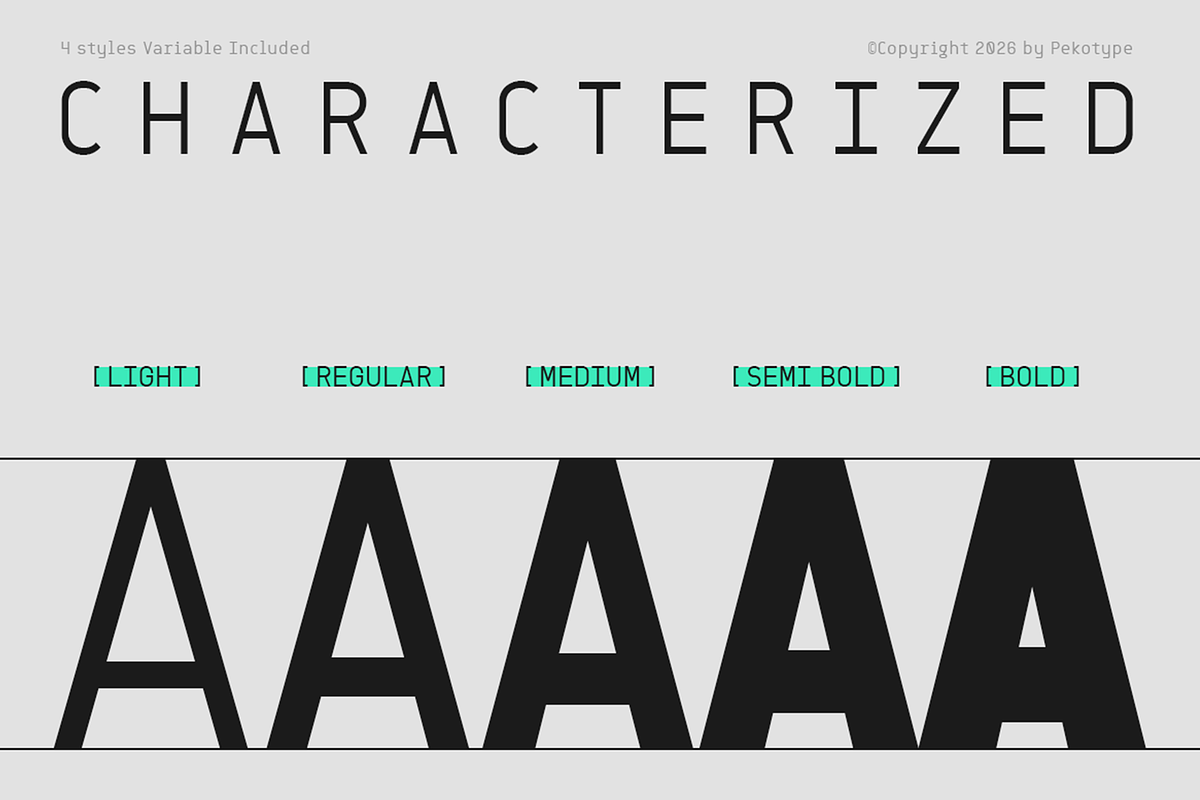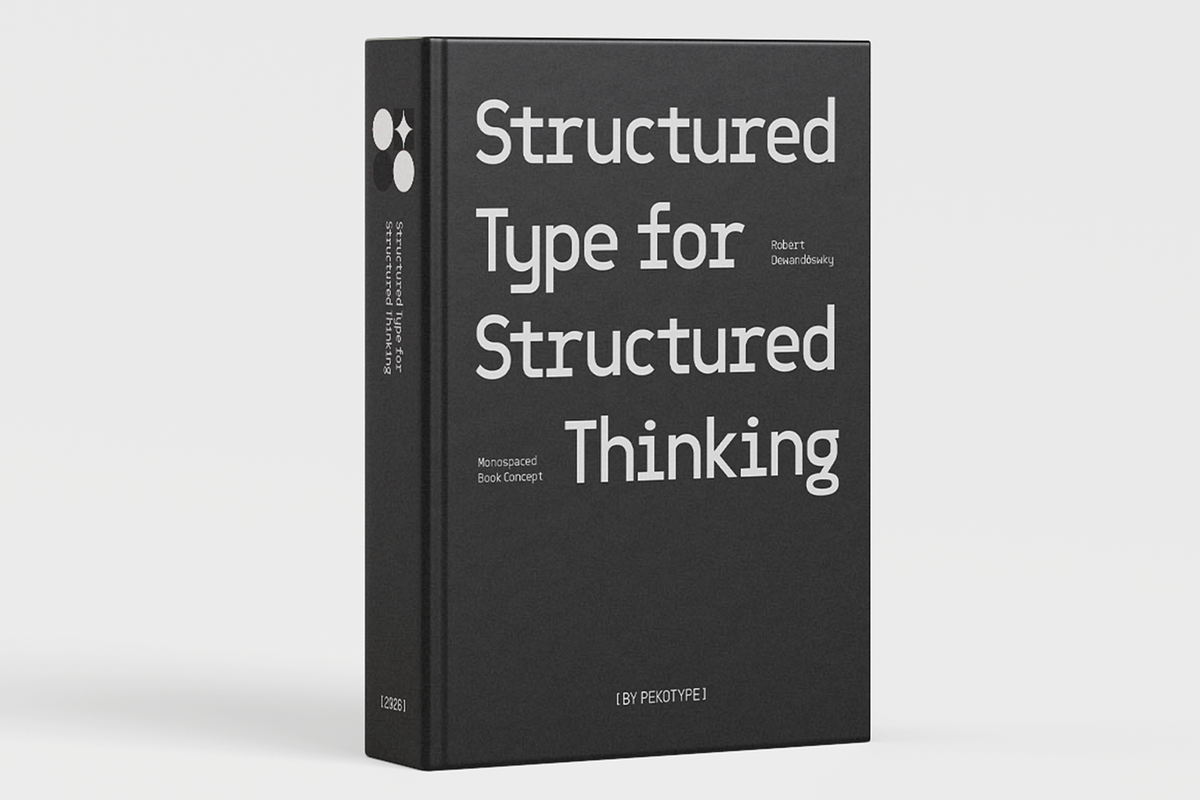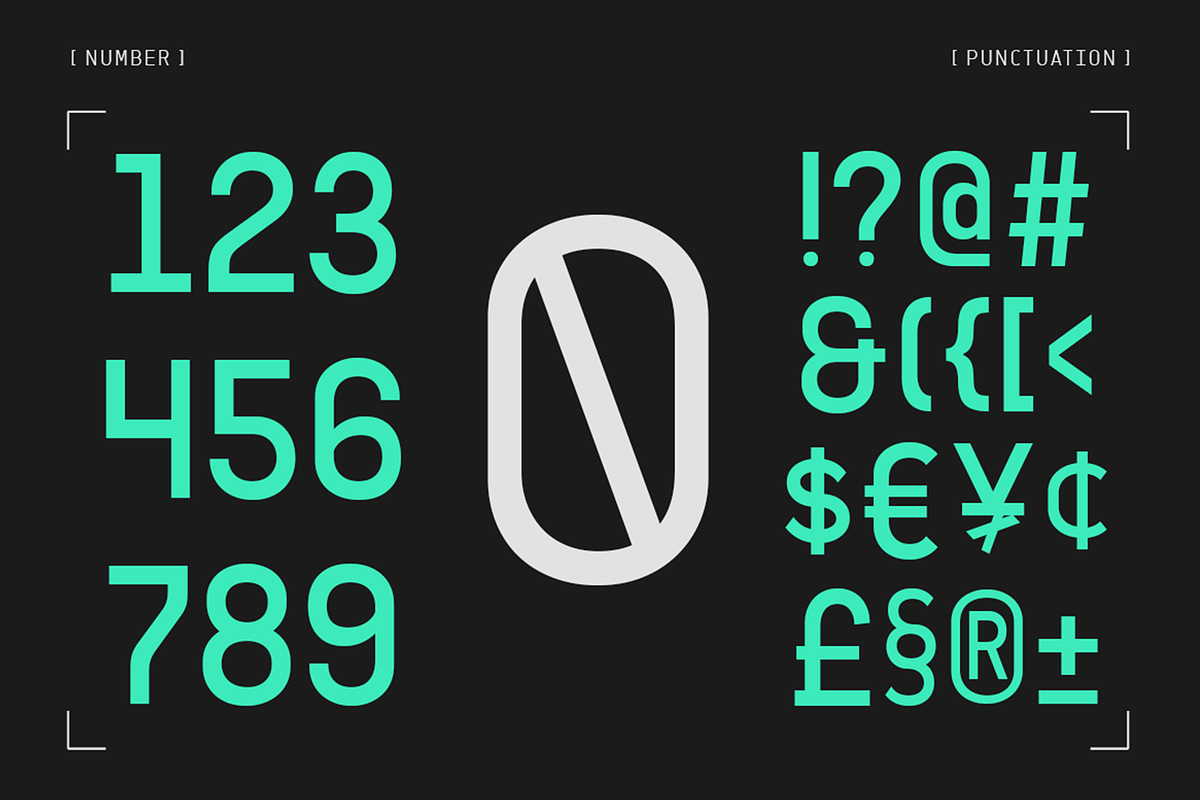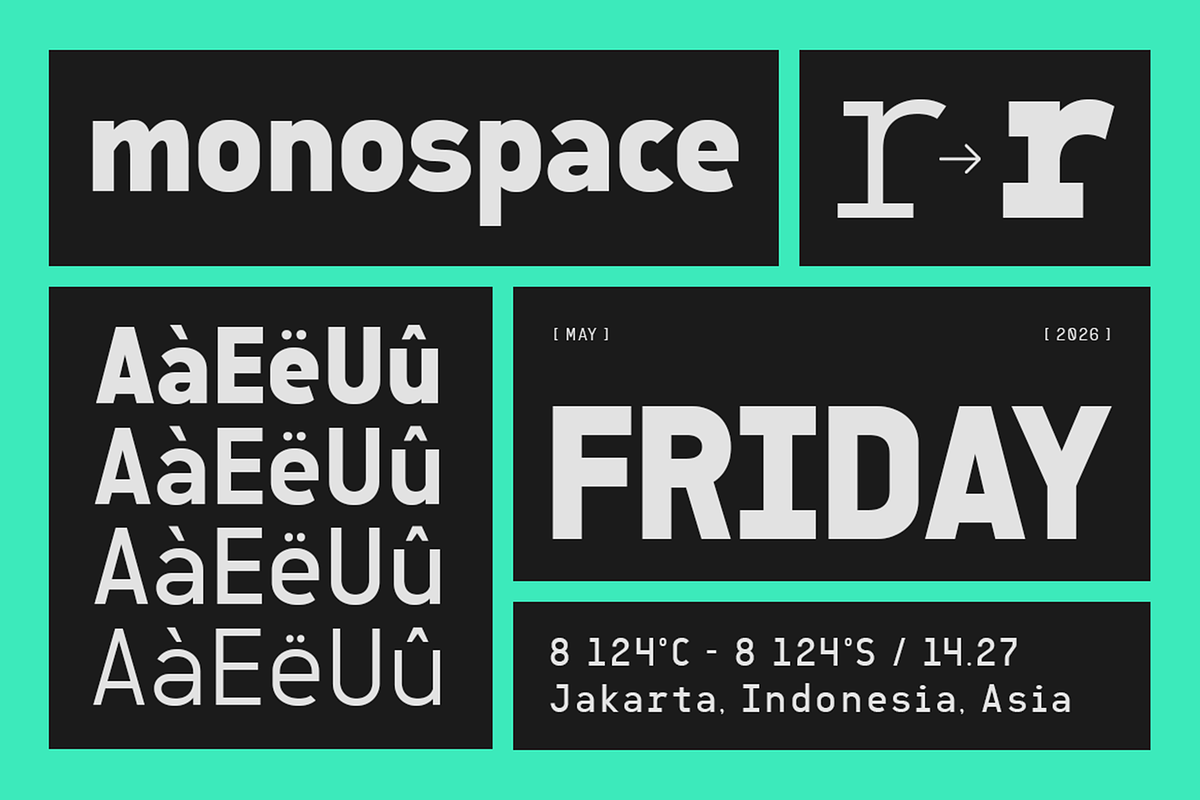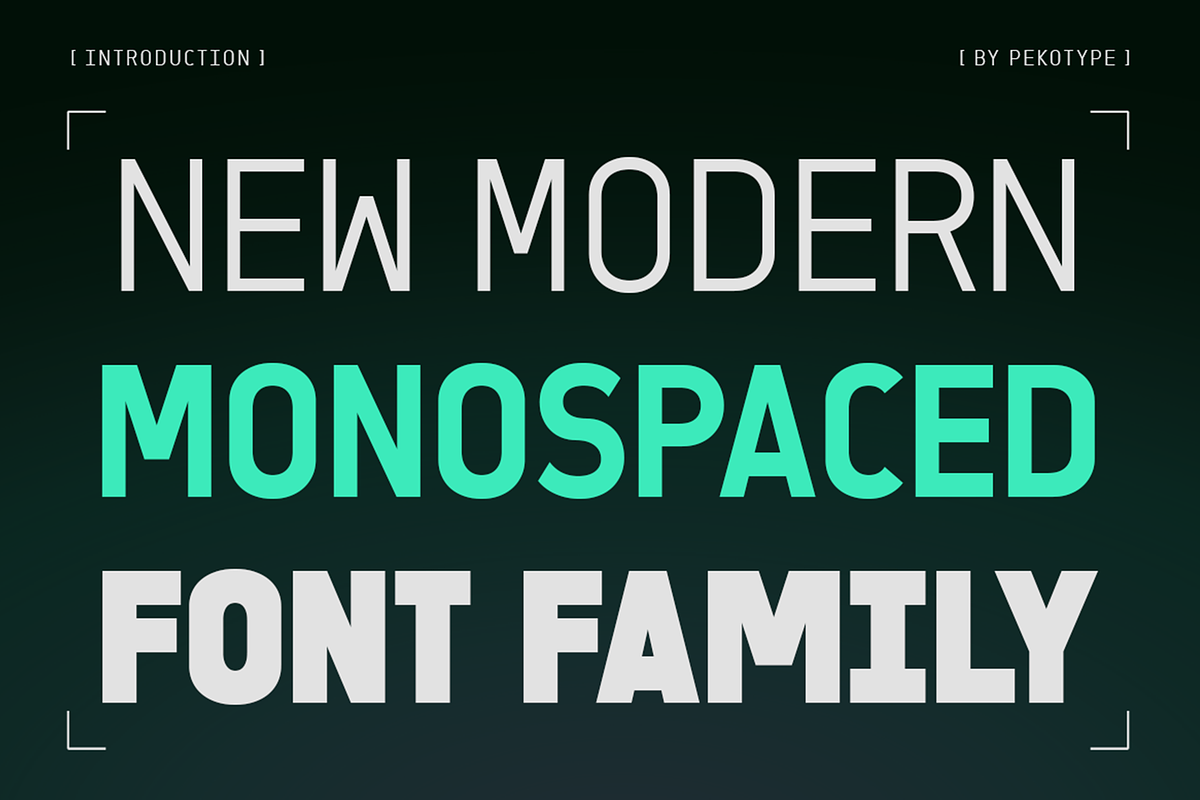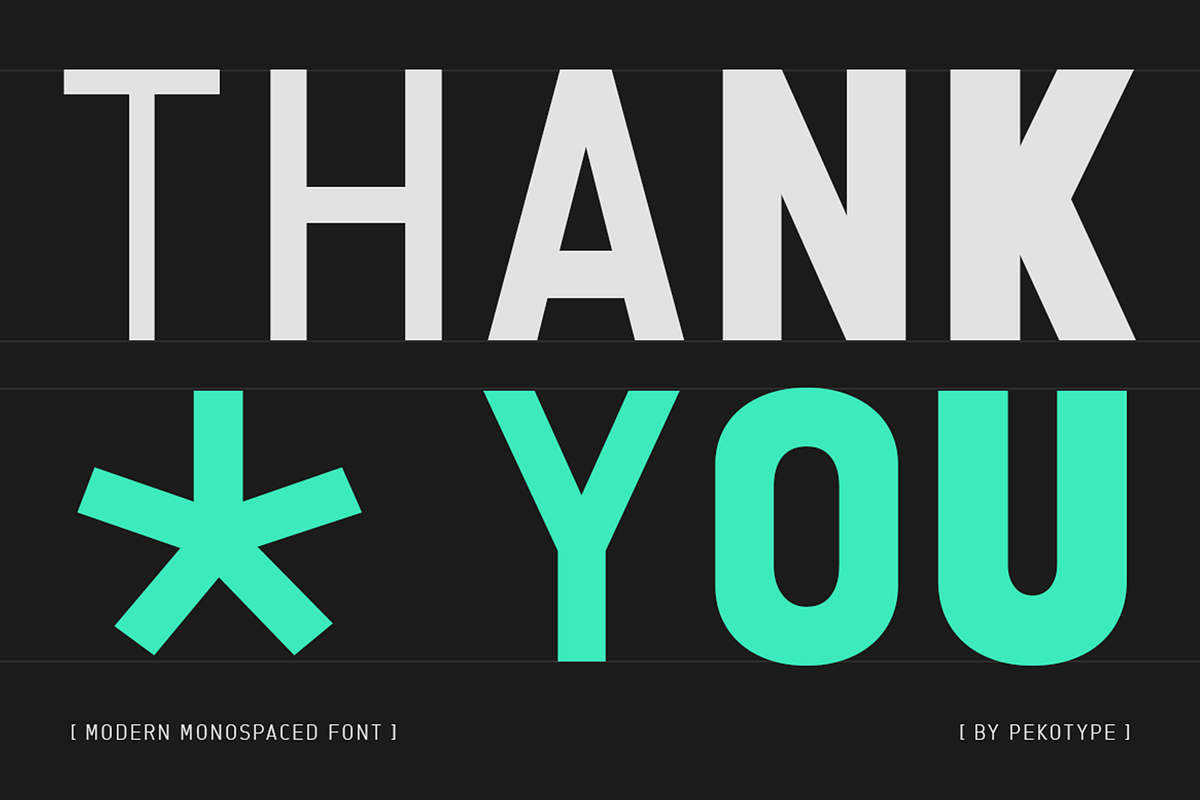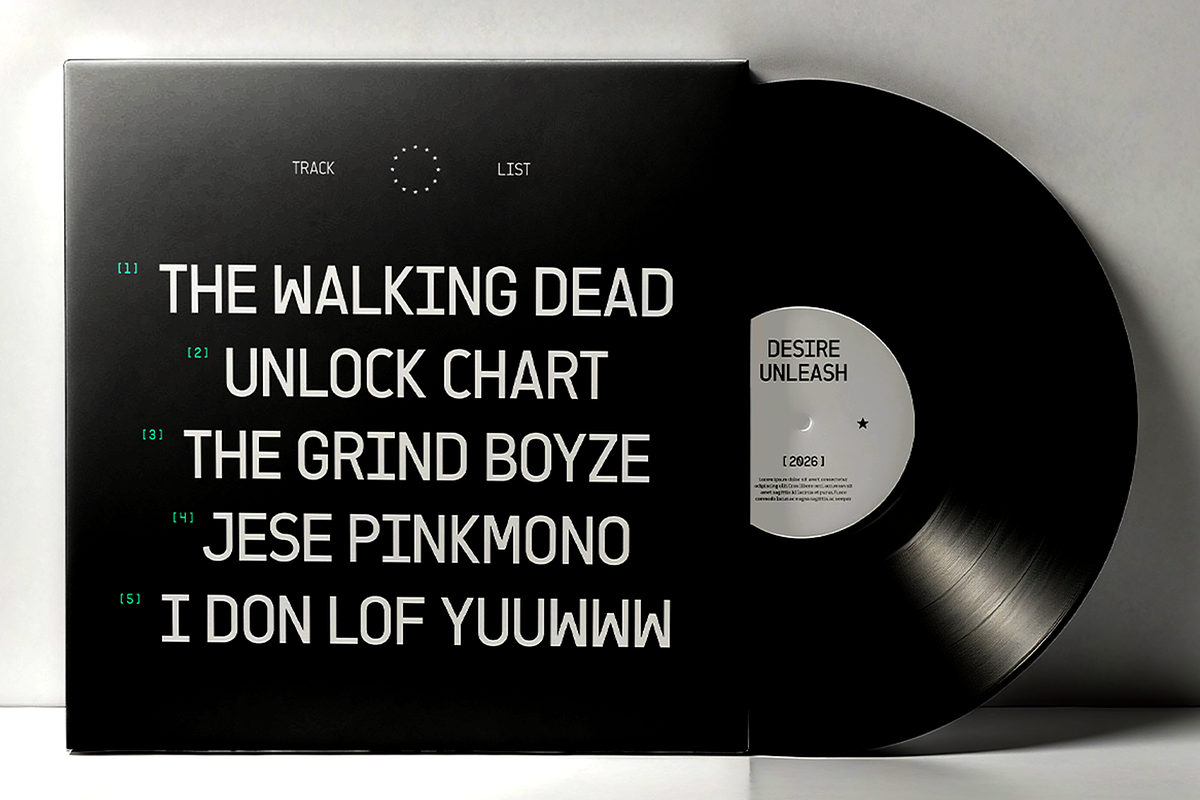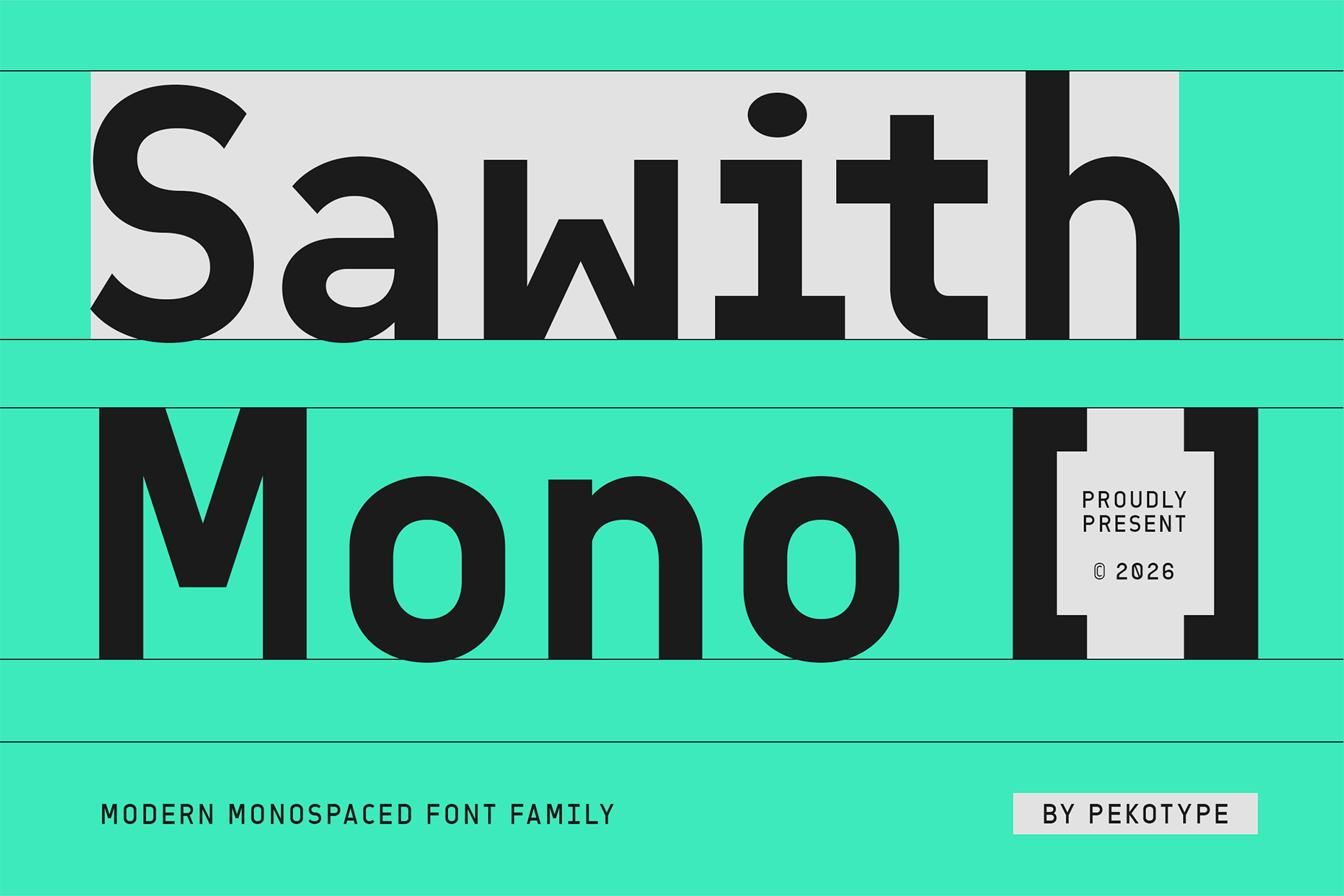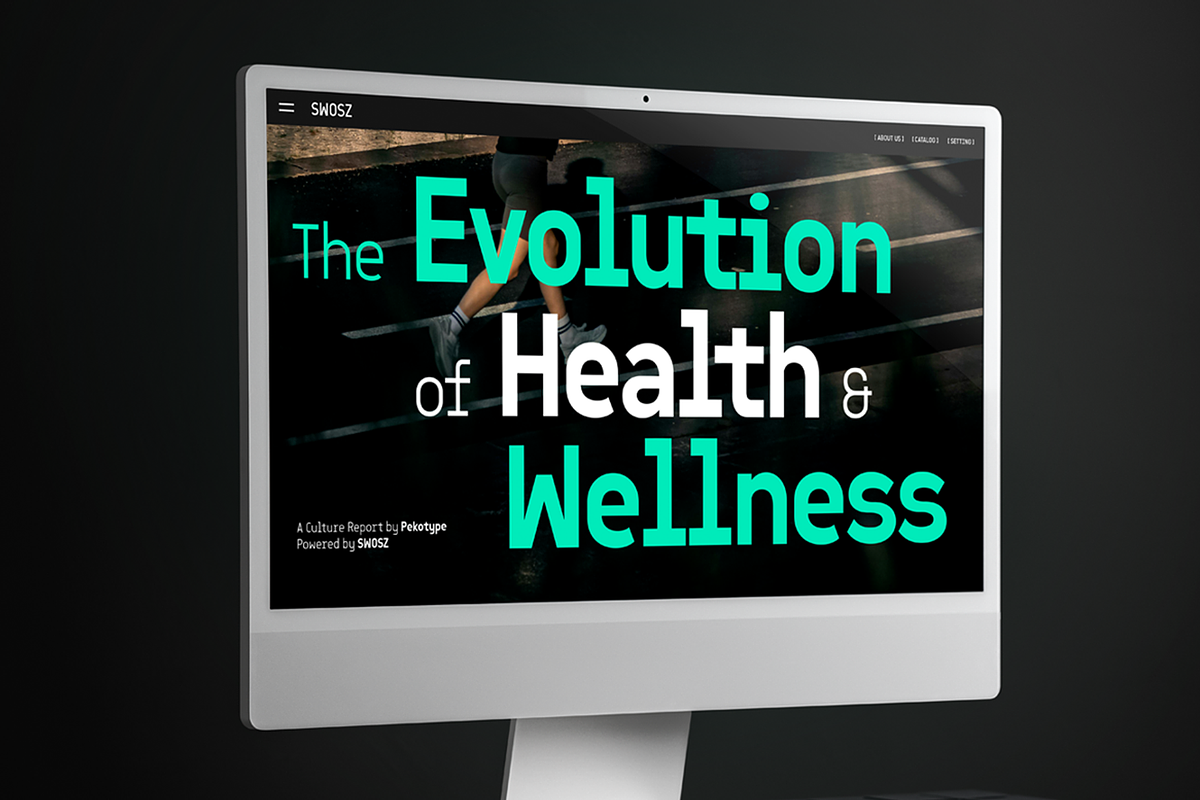
Sawith Mono - Monospaced Font Family
SAWITH MONO is a modern monospaced font family with a clean, structured, and minimal look. The letterforms are simple, balanced, and easy to read, giving your design a modern tech feel without looking too stiff. It comes with multiple weights, uppercase and lowercase characters, symbols, numerals, and multilingual support, making it flexible for many creative and professional projects.
This font works great for tech branding, websites, UI design, posters, presentations, apps, packaging, editorial layouts, and modern logos. It also fits perfectly for futuristic visuals, digital products, coding themes, sporty graphics, and clean social media content. If you want a font that feels modern, smart, and versatile, SAWITH MONO is a great choice for both bold headlines and clean layouts.
Number, Symbol, & Punctuation